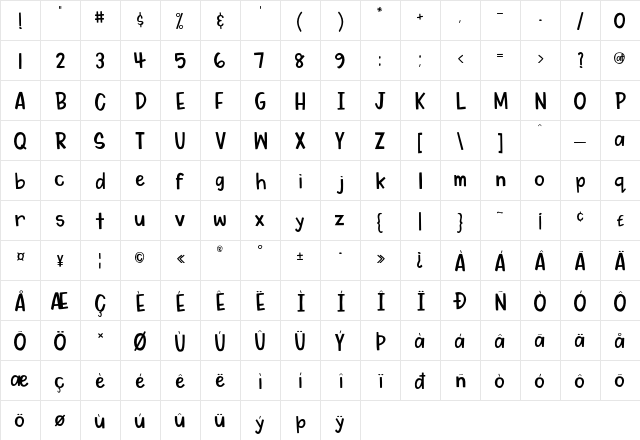
My Dear Watson Regular
| Foundry | Mindy Armour |
| Designer | Mindy Armour |
Design Context for My Dear Watson Typeface
My Dear Watson is a composed and adaptable typeface that performs quietly and consistently across a wide range of design contexts.